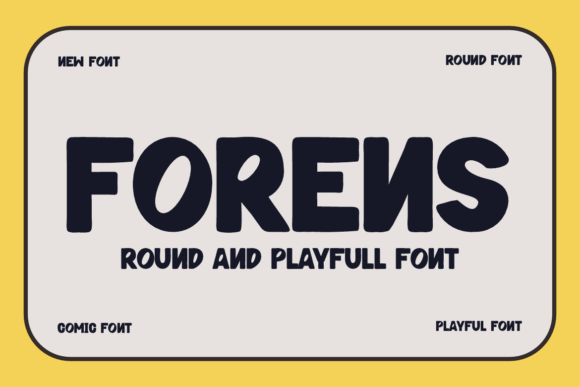
Introducing Forens Font: The Ultimate Display Font for Playful Designs
In the world of typography, fonts play a crucial role in conveying the tone and personality of a design. When it comes to creating playful, comic, and kids-themed projects, a font that exudes joy and friendliness is essential. This is where Forens Font comes in – a bold, rounded display font that is bursting with personality. In this article, we’ll explore the features, benefits, and uses of Forens Font, and why it’s the perfect choice for your next design project.
What is Forens Font?
Forens Font is a modern display font designed specifically for playful, comic, and kids-themed projects. Its chunky letterforms and soft curves give it a unique and approachable charm that makes it stand out from other fonts. The font features a bold and rounded style, which evokes a sense of joy and friendliness, making it perfect for designs that require a warm and whimsical touch.
Key Features of Forens Font
- Bold and Rounded Style: Forens Font features a bold and rounded style that gives it a chunky and soft appearance.
- Playful and Whimsical: The font’s unique letterforms and curves make it perfect for playful, comic, and kids-themed projects.
- High Readability: Despite its bold style, Forens Font ensures high readability, making it suitable for headlines, posters, and educational materials.
- Unique and Approachable Charm: The font’s casual style gives it a unique and approachable charm that makes it stand out from other fonts.
Uses of Forens Font
Forens Font is a versatile font that can be used in a variety of design projects, including:
- Headlines and Titles: The font’s bold style makes it perfect for headlines and titles that require attention-grabbing typography.
- Posters and Flyers: Forens Font is suitable for posters and flyers that require a playful and eye-catching design.
- Educational Materials: The font’s high readability and friendly style make it perfect for educational materials, such as textbooks, workbooks, and activity sheets.
- Branding and Logo Design: Forens Font can be used in branding and logo design to create a unique and memorable identity for a brand or business.
Benefits of Using Forens Font
Using Forens Font in your design projects offers several benefits, including:
- Instant Recognition: The font’s unique and bold style ensures instant recognition and attention-grabbing typography.
- Emotional Connection: Forens Font’s playful and whimsical style creates an emotional connection with the audience, making it perfect for designs that require a friendly and approachable tone.
- Versatility: The font’s versatility makes it suitable for a wide range of design projects, from headlines and posters to educational materials and branding.
- Time-Saving: Forens Font’s high readability and clear style save time and effort in designing and editing text.
Tips for Using Forens Font Effectively
To get the most out of Forens Font, here are some tips for using it effectively:
- Use it for Headlines and Titles: Forens Font is perfect for headlines and titles that require attention-grabbing typography.
- Pair it with Other Fonts: The font can be paired with other fonts to create a unique and visually appealing design.
- Experiment with Colors: Forens Font looks great in a variety of colors, so don’t be afraid to experiment and find the perfect color scheme for your design.
- Keep it Simple: While Forens Font is a bold and playful font, it’s essential to keep your design simple and easy to read.
In conclusion, Forens Font is a bold, rounded display font that is perfect for playful, comic, and kids-themed projects. Its unique and approachable charm makes it stand out from other fonts, while its high readability and clear style ensure that it’s easy to read and understand. Whether you’re designing headlines, posters, educational materials, or branding, Forens Font is a versatile font that can help you create a warm and whimsical design that grabs attention and leaves a lasting impression.
FAQs About Forens Font
- What is Forens Font?: Forens Font is a bold, rounded display font designed for playful, comic, and kids-themed projects.
- What are the key features of Forens Font?: The font features a bold and rounded style, chunky letterforms, and soft curves that evoke joy and friendliness.
- What are the uses of Forens Font?: Forens Font can be used in headlines, posters, educational materials, branding, and logo design.
- What are the benefits of using Forens Font?: The font offers instant recognition, emotional connection, versatility, and time-saving benefits.